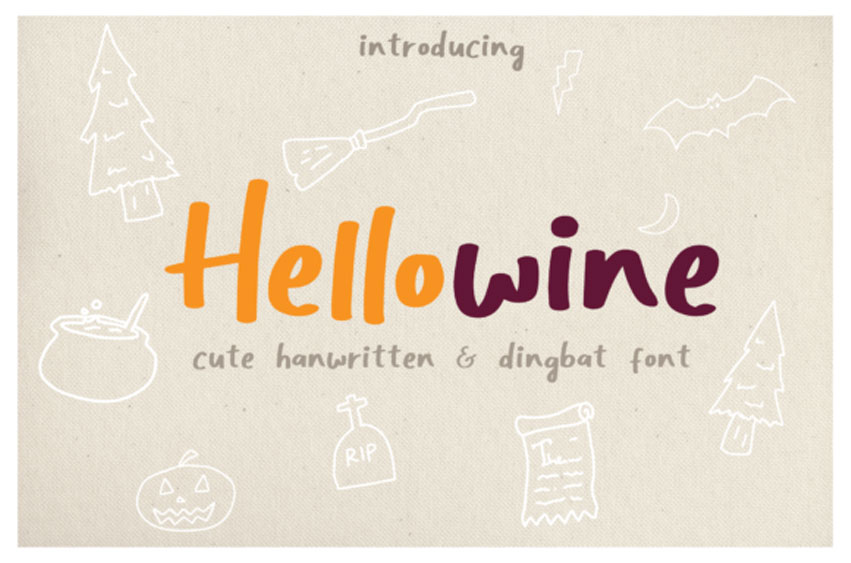
Hellowine Font is a cute handwritten font based on the expression of real handwriting. It lets you transform type into an exciting and beautiful piece of work.
The irregular, hand-lettered look adds a real human touch to things and comes along with a lot of loving details. Combine all font styles the way you want, add some ornamental swashes or banners, and even a single word becomes magnificent.